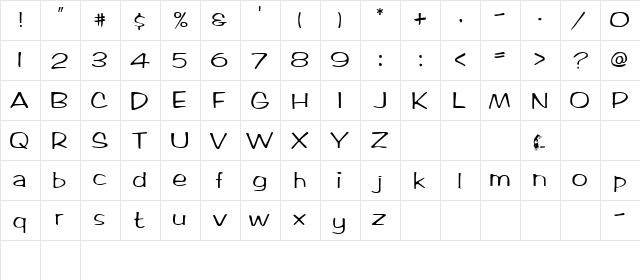
Arctic Regular
Design Context for Arctic Typeface
Arctic takes a measured approach to typography — its balanced proportions and neutral character make it a reliable workhorse for both digital and print work.